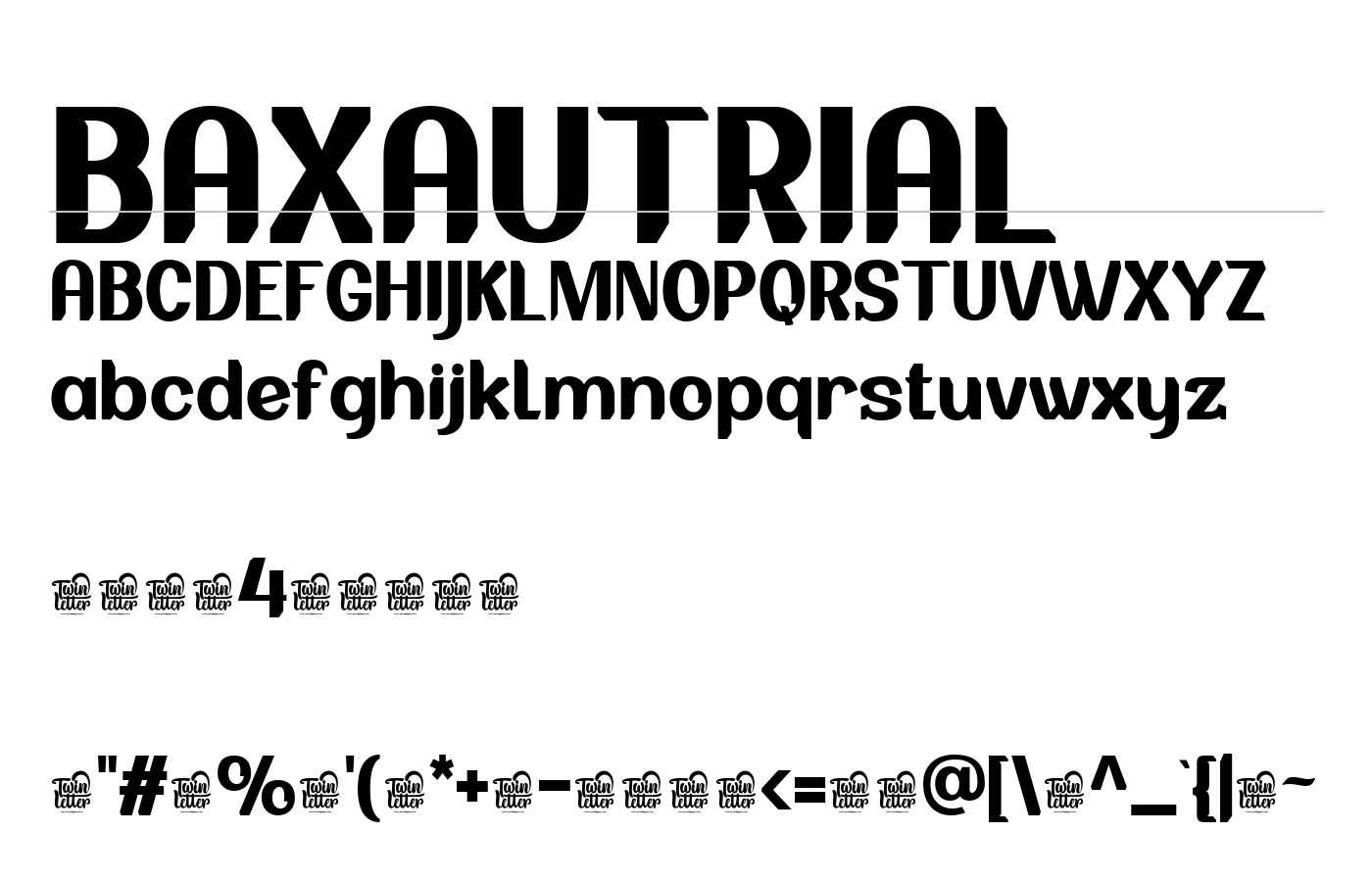
BAXAUTRIAL is a bold, condensed sans serif font with a distinctive Art Deco-inspired style, featuring sharp angles and geometric shapes that give it a strong, modern character. Its tall x-height and uniform stroke weight create a sturdy yet elegant impression, making it ideal for eye-catching headlines, posters, and branding projects that demand a vintage yet contemporary feel. This font works well for fashion, luxury, and editorial designs where a mix of boldness and sophistication is desired.
BAXAUTRIAL Font
About BAXAUTRIAL Font